Coupon & Gift Voucher Templates for Shops, Salons & Gifts
A gift voucher is one of those small design jobs that comes up constantly — a salon needs a Mother’s Day certificate, a cafe wants a winter promo card, someone wants a printable set of love coupons for a partner. This collection brings together 20 editable coupon and voucher templates, from watercolour Christmas certificates and retro ticket coupon sets to a near-black shopping pass and a flat-illustration spa voucher.
They cover the calendar unevenly on purpose: several are built around Mother’s Day and Valentine’s, a few are strictly seasonal, and others — like the terracotta $200 voucher or the bow-and-value card — carry no holiday cues at all and work year-round. Every one has the fill-in fields already in place, so you’re changing names and figures rather than rebuilding a layout.
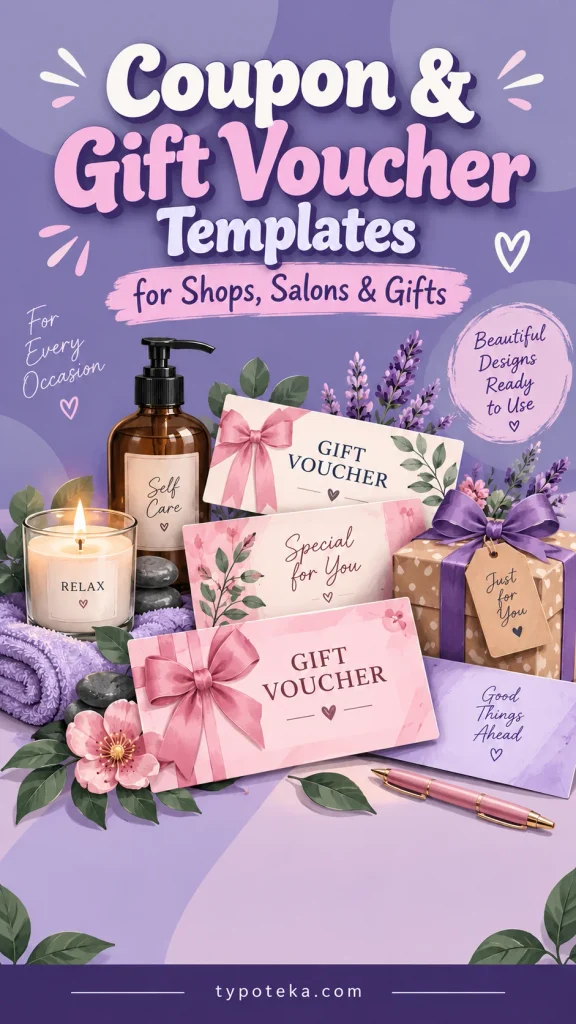
1. Mother's Day Promotion
A promo coupon in a lilac palette with pink and purple accents. The shop name sits in small caps at the top, with “Celebrate Mother’s Day” below it in a chunky cartoon-style display face with a pink outline and black shadow. Hand-drawn fashion items — a heeled shoe, a handbag, and a perfume bottle — fill the right side, while a pink “20% OFF FOR ALL PRODUCTS” block anchors the left.
Built for clothing, shoe, and accessory boutiques running a Mother’s Day or spring promo mailer. The illustrations, discount percentage, and store logo are all easy to swap for your own range.
A brown-and-beige voucher styled like a spa catalogue page. The left side carries a flat illustration of spa items — a rolled towel, black massage stones, green palm leaves, and three candles — while the right side reads “Spa Voucher” in a green handwritten script above three dotted fill-in lines. A beige frame holds the whole card together.
Suited to spa salons, massage studios, and beauty practices issuing gift certificates for mothers — birthdays, Mother’s Day, or similar occasions. The wording and fill-in lines adapt easily to your own services.
A coupon on a beige-and-peach background built around a floral illustration. The shop name runs in caps at the top with “Celebrate Mother’s Day” below in a dimensional 70s-style pink type with a dark outline. A hand-drawn daisy arrangement in a polka-dot mug sits on the right, with a pink “20% OFF ON ALL PRODUCTS” block on the left.
A natural fit for flower shops and floral studios running Mother’s Day promotions or spring sales. Brand name, discount figure, and illustration all swap out cleanly.
A gift certificate on a plum-pink paper-textured background. “VALENTINE’S DAY” is set large in a cream retro face with a dimensional shadow, with “Gift Certificate” in italics beneath it. Three fill-in fields — to, from, and amount — run down the left with dotted lines, while a soft cartoon cupid with curly blond hair and blue wings sits on the right.
Works for gift shops, cafes, and salons issuing certificates for February 14. The amount and recipient fields are left blank, so any offer can be written in.
A certificate on a pale pink background with a photorealistic red rose in the top right corner. The boutique name runs in spaced caps at the top, with “Gift Certificate” below it in a red handwritten script and “VALENTINE’S DAY SPECIAL” in thin caps underneath. Two beige field blocks at the bottom cover recipient, amount, and expiry.
Designed for clothing boutiques and gift shops handling February 14 certificates. The brand name and the amount and expiry fields rewrite easily for your own offer.
View This Template →6. Gift Voucher
A coupon in a warm beige-and-red palette with paper texture. A hand-drawn red mug of cocoa with whipped cream, sprinkles, and a candy cane sits on the left with red hearts scattered around it. On the right, “Gift voucher” is set in a heavy serif above dotted to, from, and amount fields, with a website line at the base.
A good match for coffee shops, bakeries, and small cafes issuing winter or everyday gift certificates — the hearts hint at romance but the overall look stays versatile. Fields and the website line are simple to replace.
View This Template →7. Mother's Day Movie Night Voucher
A voucher in soft pink watercolour tones with blurred wavy borders at the top and bottom. The title runs in a handwritten italic over a more restrained pink subheading, with a watercolour popcorn bucket on the right. Three thin fill-in lines — to, valid until, and with love from — sit below with plenty of white space around them.
Built for family gift certificates on Mother’s Day — a voucher for a movie night with popcorn and snacks. The field text rewrites for any other occasion, and the watercolour look stays soft rather than strictly festive.